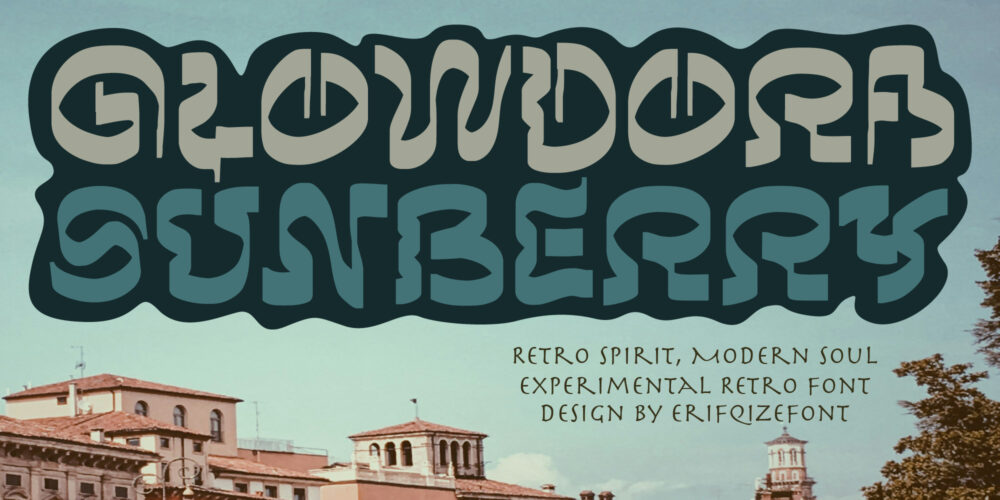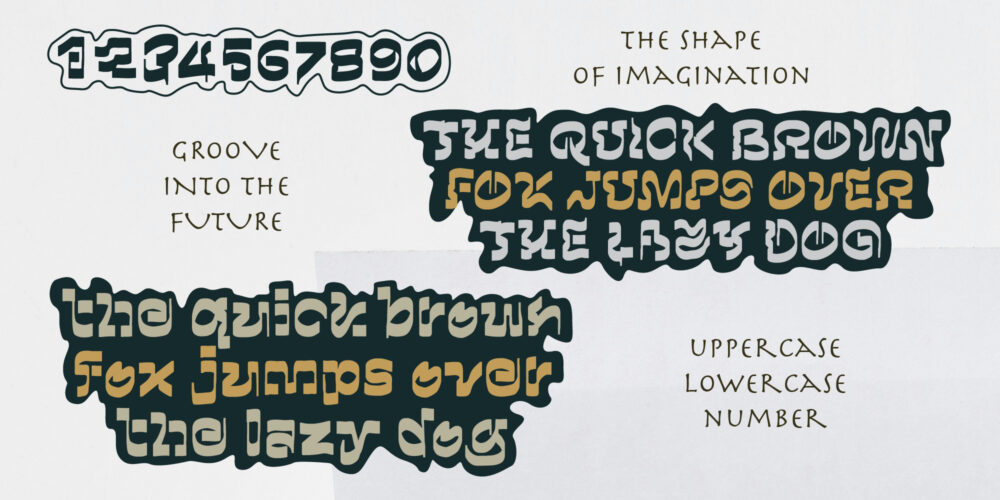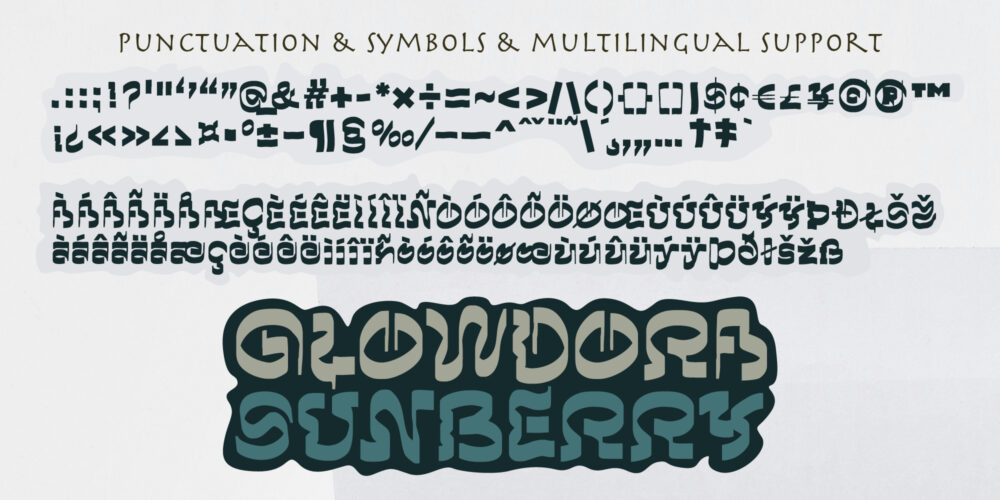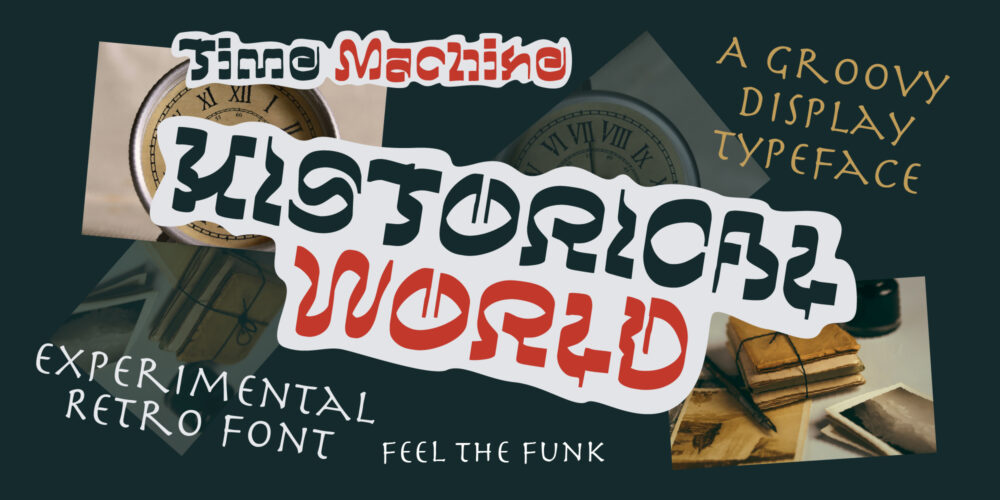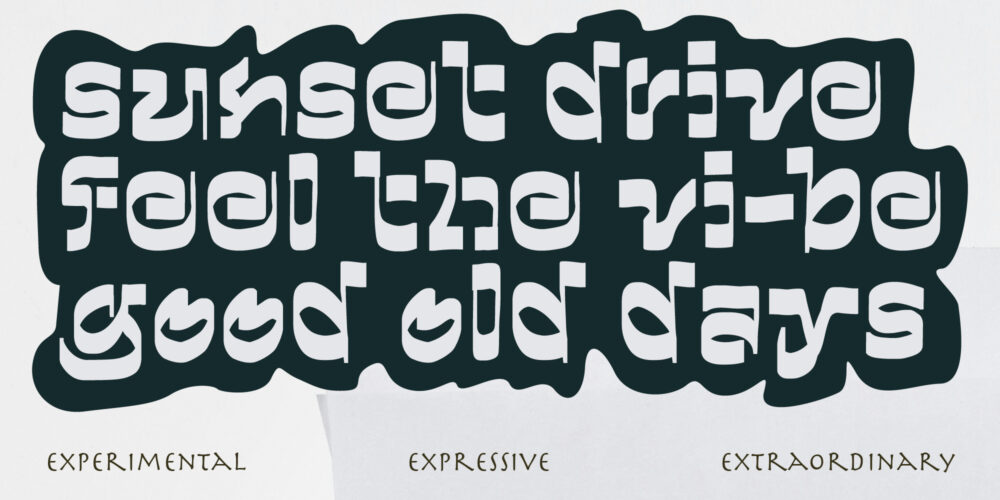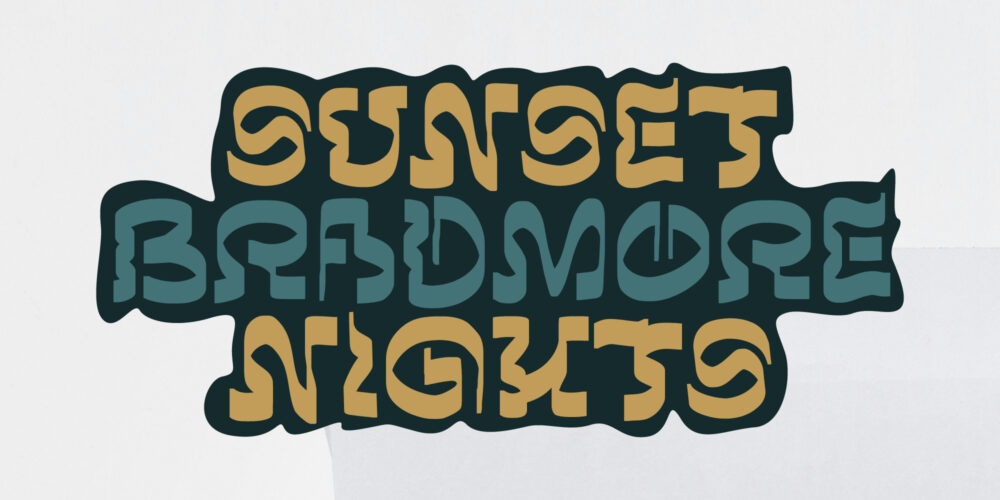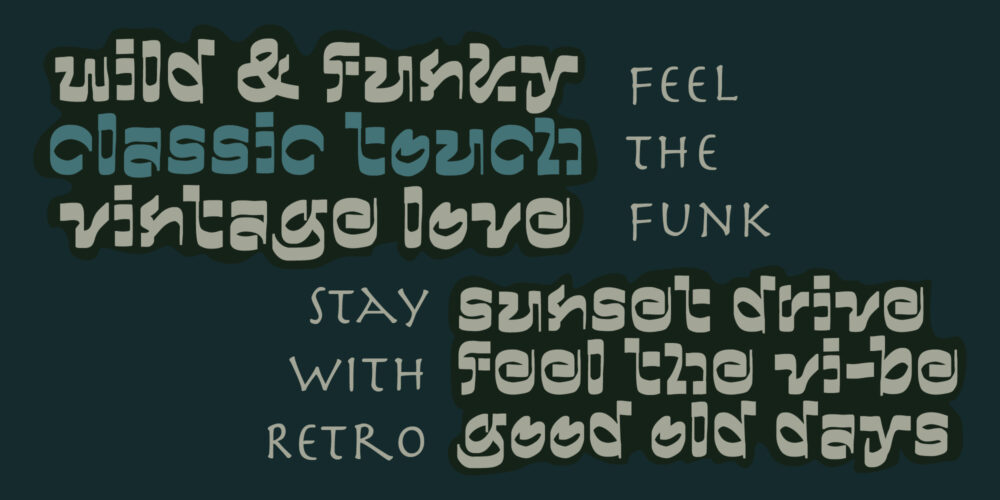
Glowdora Sunberry is a bold experimental retro display font that blends playful curves with a warm vintage personality. Inspired by psychedelic typography and mid-century retro aesthetics, this font features chunky letterforms, organic shapes, and a soft groovy rhythm that instantly grabs attention. Designed to stand out, Glowdora Sunberry is perfect for posters, branding, packaging, album covers, event titles, logos, headlines, and creative projects that need a nostalgic yet modern touch. Its expressive style brings a joyful, funky, and artistic vibe, making it ideal for designs that want to feel bold, creative, and full of character. Whether you’re creating retro-themed visuals, experimental layouts, or eye-catching display text, Glowdora Sunberry delivers strong personality with a modern soul. Designed by Erifqizefont.